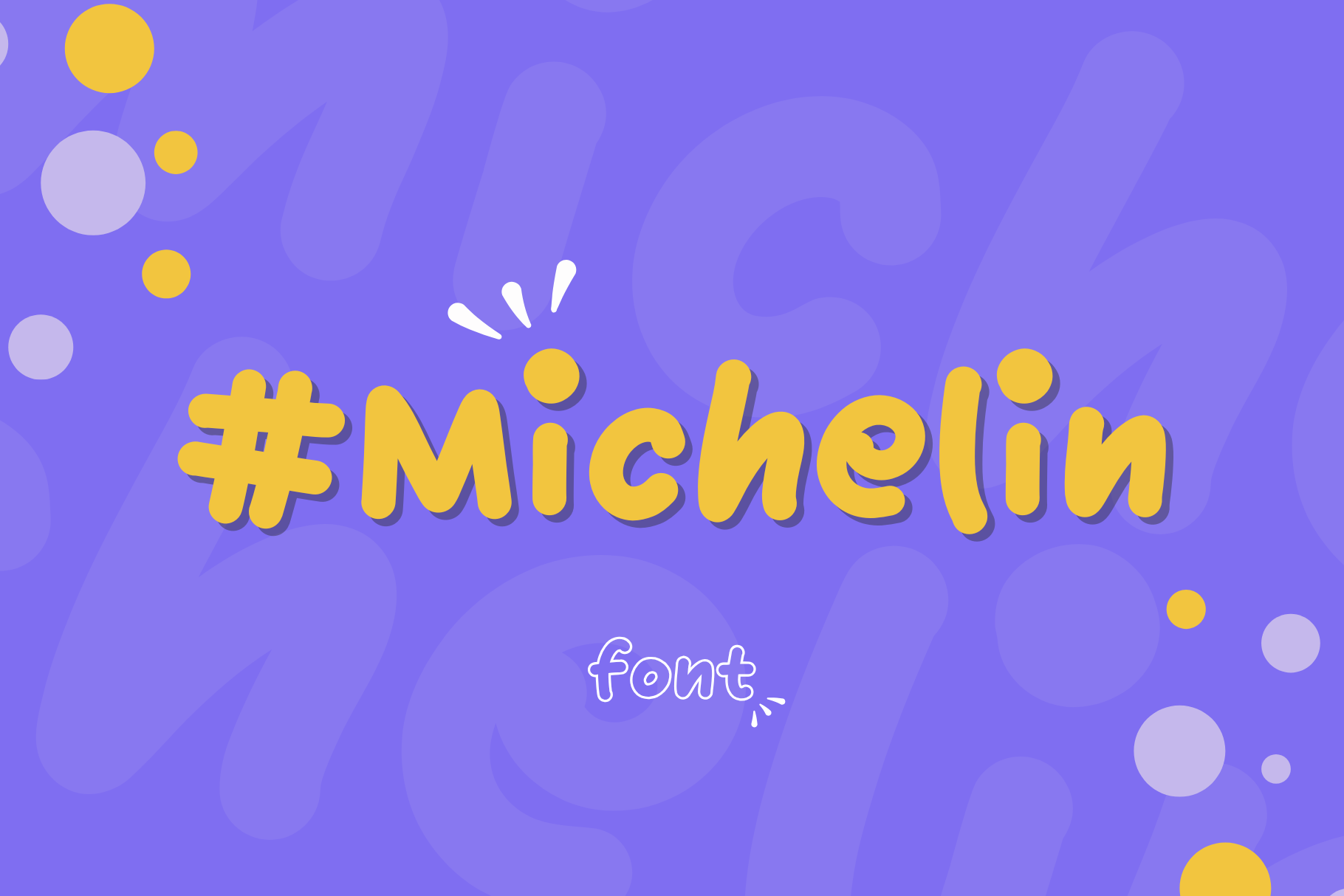
Michelin Friendly Display Font
Michelin – A Modern and Eye-Friendly Display Font
Michelin is a modern and eye-friendly display font that brings positive energy to any project. Its distinctive yet subtle shapes give it a bold and unique style. Michelin is the perfect choice for designers seeking a typography full of personality, making their work stand out with an unmistakable character.
Michelin is ideal for branding, social media, posters, invitations, book covers, and any project where a unique and authentic feel is essential. It also works great for logos, stickers, clothing, t-shirts, and other projects that require a stylish, handwritten touch.